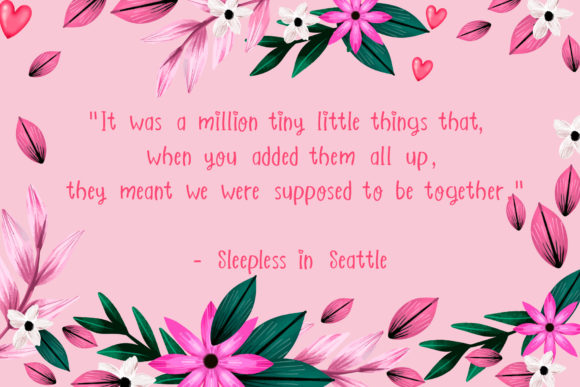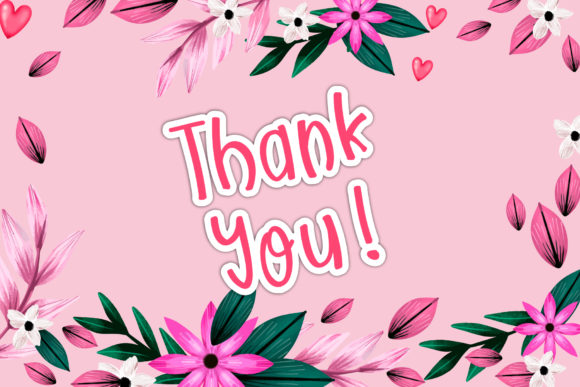
About Love Available Font
“Love Available” is a dainty and joyful handwritten font that exudes playfulness and romanticism. Its charming and delicate style makes it the perfect choice for creating personalized letters, cards, and other heartfelt messages.
The whimsical and expressive letterforms of “Love Available” capture a sense of joy and happiness. The flowing strokes and intricate details give the font a delightful and inviting appearance, evoking a feeling of warmth and affection. Whether you’re writing a love letter, creating a birthday card, or sending a thoughtful note to someone special, this font adds a touch of magic and personalization to your words.
The playful nature of “Love Available” allows you to infuse your designs with a sense of lightheartedness and creativity. Its romantic undertones make it an ideal choice for expressing love, friendship, and appreciation. The font’s soft curves and elegant flourishes create a sense of whimsy and add a touch of romance to any project.
When using “Love Available,” consider experimenting with different sizes, colors, and arrangements to create visually pleasing compositions. You can combine it with illustrations, decorative elements, or other fonts to enhance the overall design and make it even more personalized.
Whether you’re creating wedding invitations, anniversary cards, or simply adding a heartfelt message to a gift, “Love Available” brings a touch of charm and joy to your designs. Its dainty and joyful nature adds a special element to any personalized letter or card, making it truly memorable and cherished.
In summary, “Love Available” is a dainty and joyful handwritten font that embodies playfulness and romanticism. Its charming style is perfect for creating personalized letters, cards, and other heartfelt messages. Whether you’re expressing love, friendship, or appreciation, this font adds a touch of magic and personalization to your designs, making them truly special.